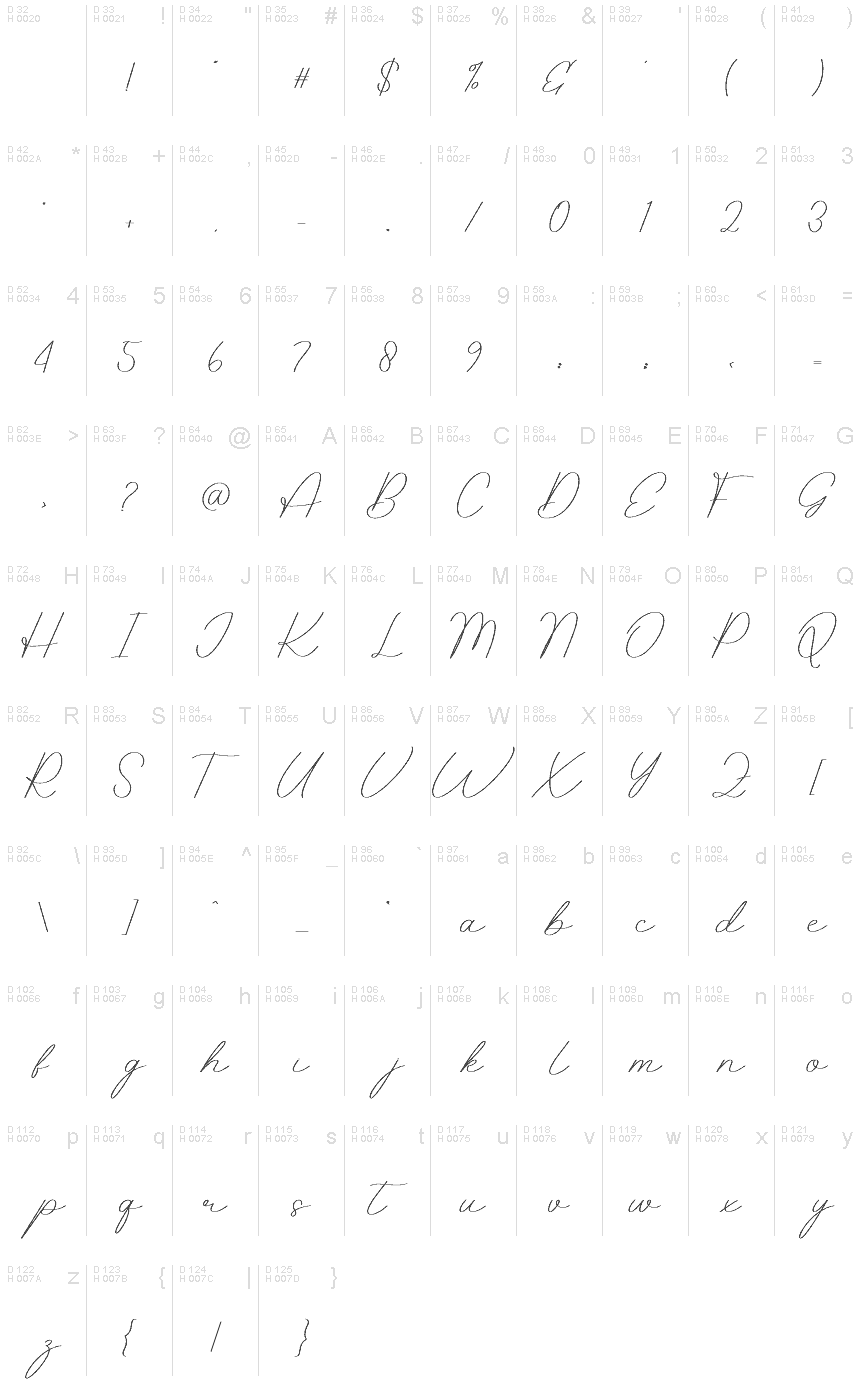
Giovany
Giovany font is a light free handwritten font designed by Scratchones with an elegant, sophisticated look. Each flowing character in this font family mimics those created by calligraphy pens, bringing that signature script style with every letter included. Giovany presents itself as a suitable option for projects in need of high-class typefaces with contemporary appeal.
Pick Giovany for your packagings, especially luxury ones like cosmetic boxes and wrapping bags. It also looks good on invitation cards and event designs such as weddings or birthdays. Use it further on branding materials like business cards or logotypes or experiment with it on posters.